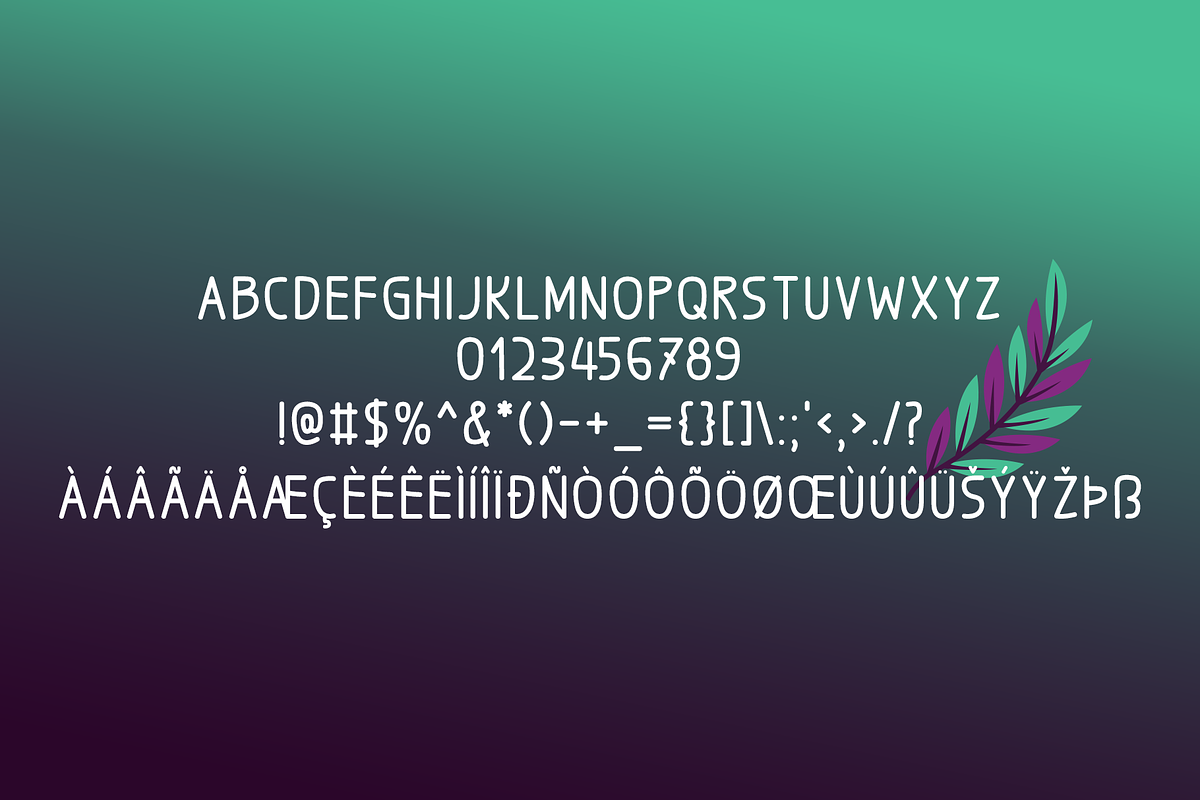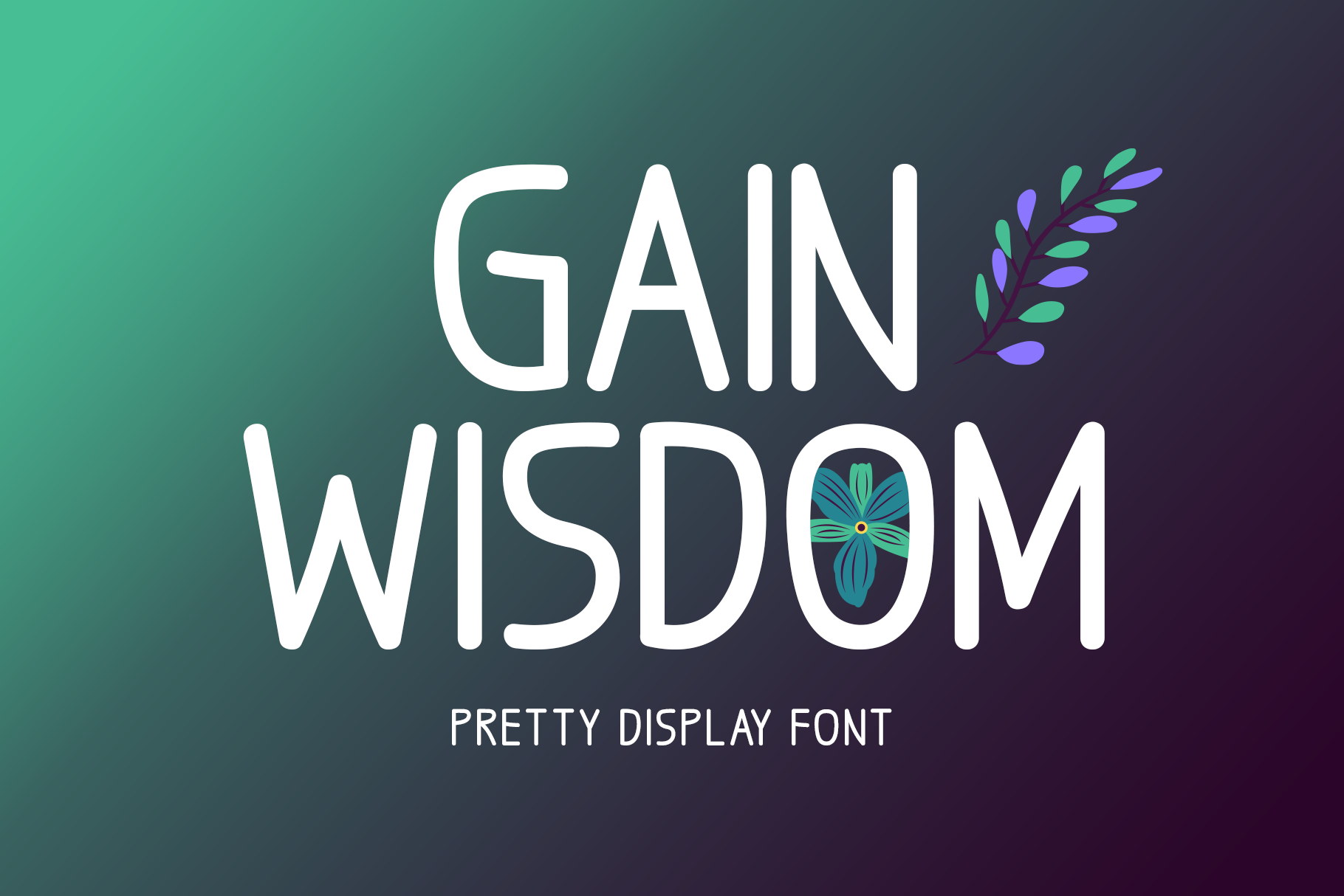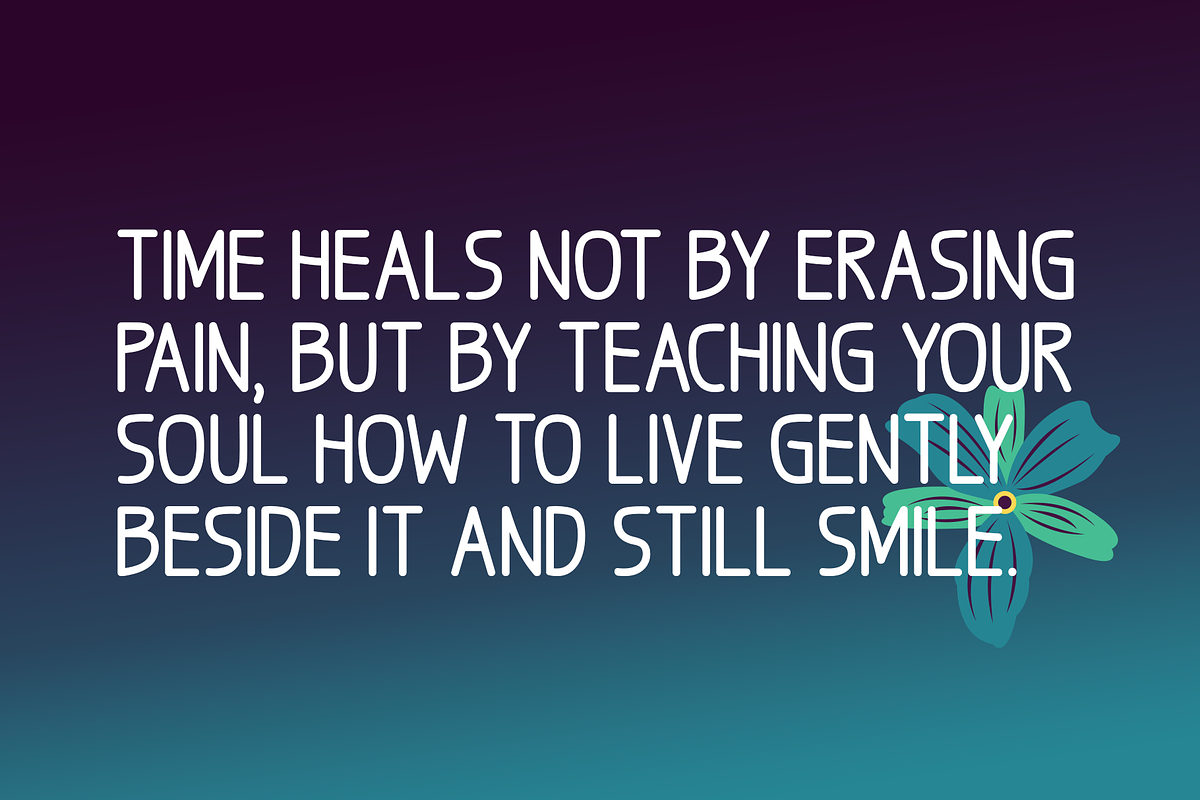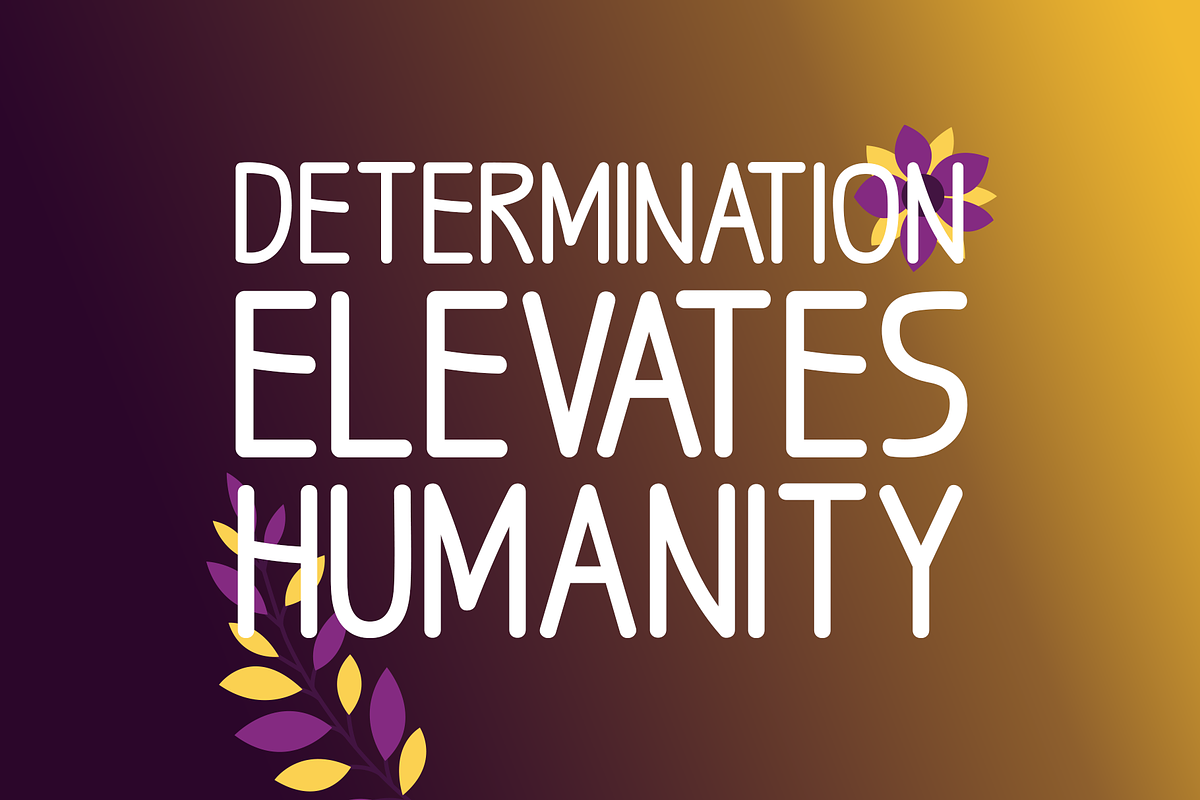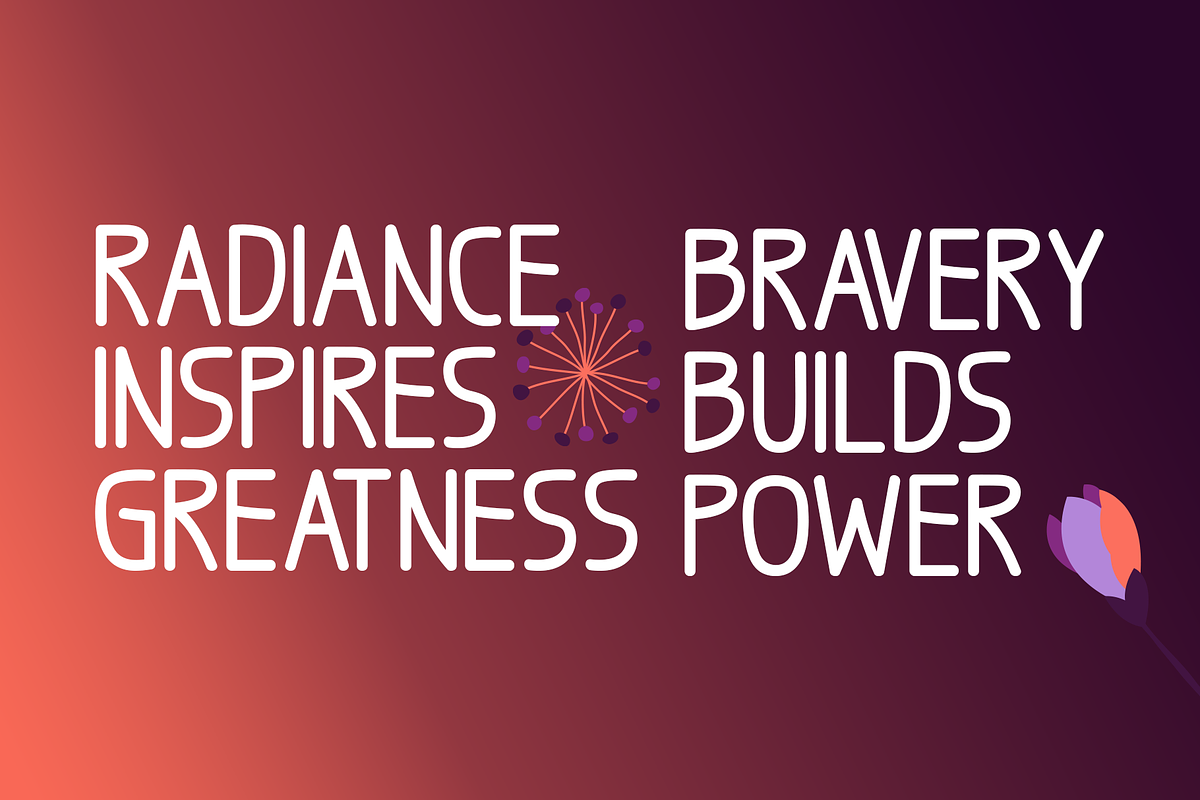
Gain Wisdom Typeface
Introducing Gain Wisdom!
Gain Wisdom is a pretty and graceful display font that blends simplicity with charm, making it a beautiful choice for creative projects. Its natural, flowing strokes provide digital graphics, stationery, t-shirts, posters, invites, and logos a cozy, intimate feel. Perfect for both casual and elegant themes, Gain Wisdom adds a handcrafted feel and gentle sophistication to every creation.
Includes a range of multilingual support